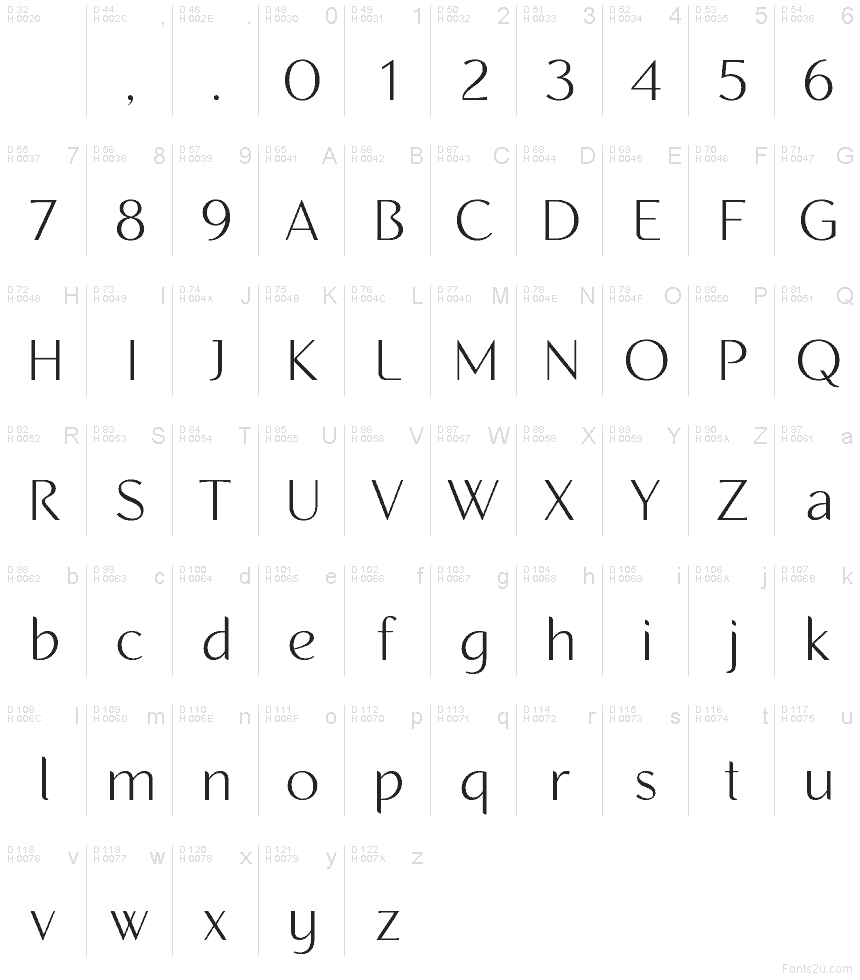
Recline Light
Recline Light font by Digitype Studio is a free modern serif typeface. In the Recline family, this cut leans on razor-thin hairlines, tapering strokes, and elegant, blade-like serifs that feel both airy and decisive. Letters breathe with generous counters and a gentle rhythm, giving headlines a clean shimmer while keeping small text crisp and calm.
Using Recline Light, you’ll get graceful bite for fashion branding, beauty packaging, magazine covers, lookbooks, wedding suites, and refined social posts. The light weight keeps compositions sophisticated without shouting, and the subtle flares add just enough drama to stick in memory. This free font pairs smoothly with a plain geometric sans for captions—set Recline Light a touch larger with open tracking to let those delicate curves glow.
Recline comes in a modern style featuring 10 weights, 5 straight & angled, making it easy to adapt to your design.